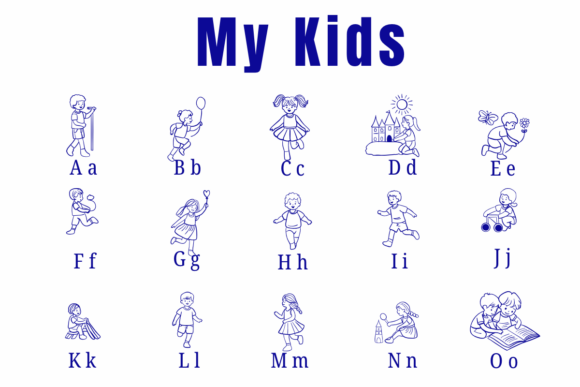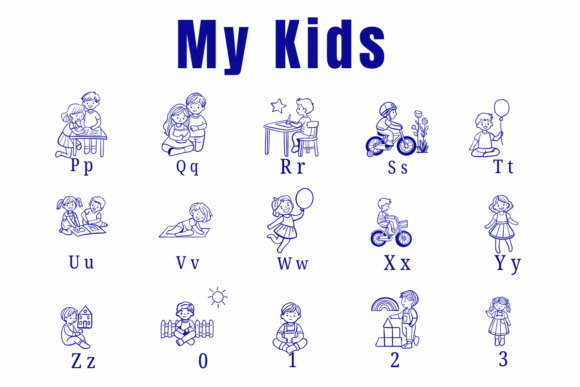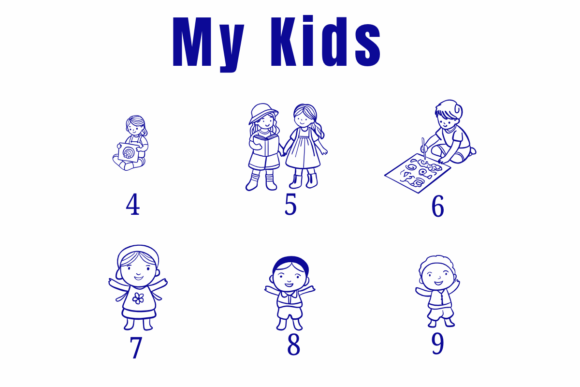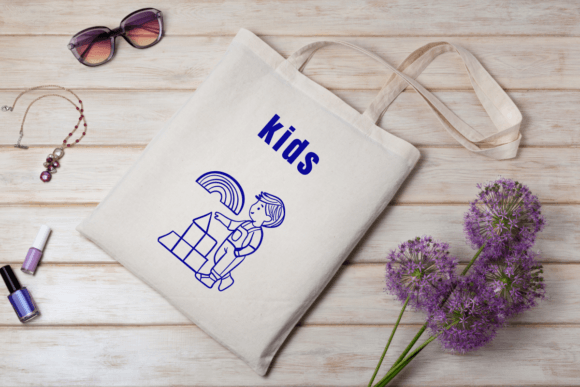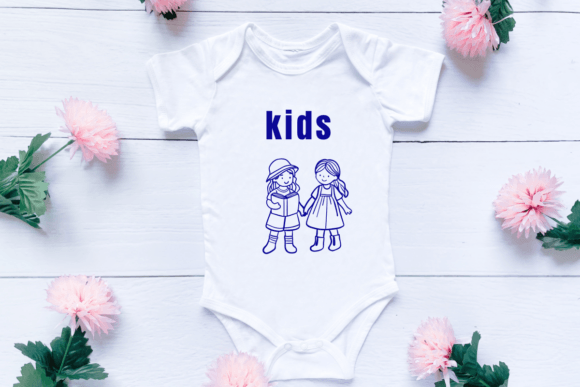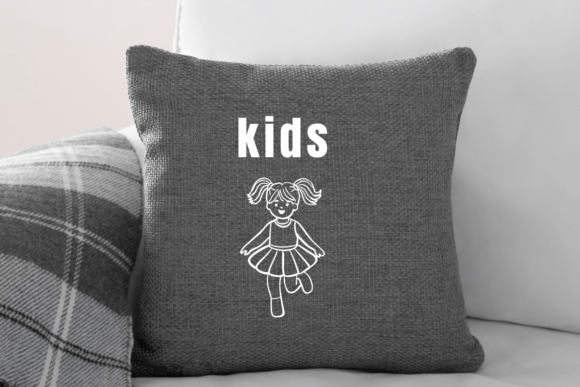
Introduction to My Kids Font
My Kids Dingbats is a charming and playful collection of hand-drawn doodles featuring children at play, learning, and exploring.
Perfect for educational projects, kids’ event posters, invitations, scrapbooking, and more, this font adds a fun and nostalgic vibe to your designs Whether youโre creating for a school or a family-friendly theme, My Kids Dingbats offers a delightful visual touch.
My Kids Font offers exceptional quality and versatility, making it a valuable addition to your design toolkit. Whether you’re creating for personal projects or commercial use, My Kids Font delivers professional results.